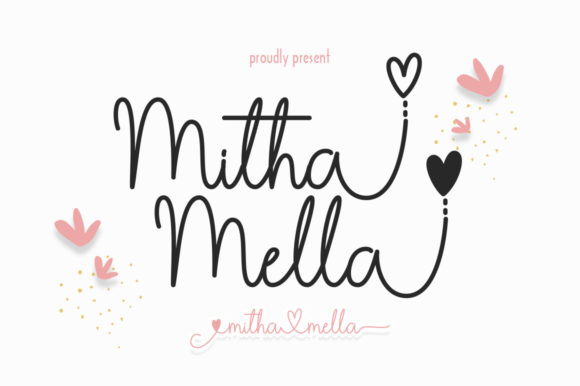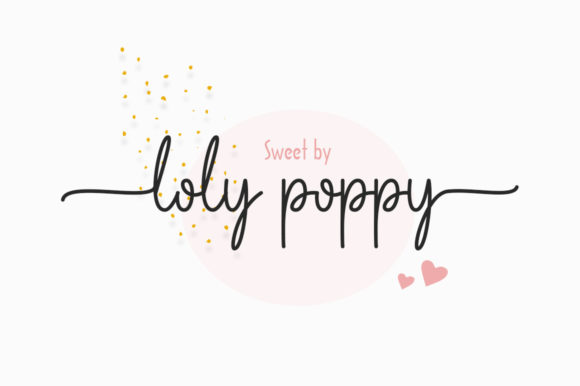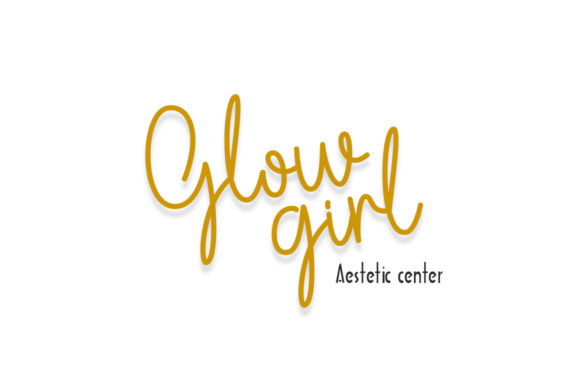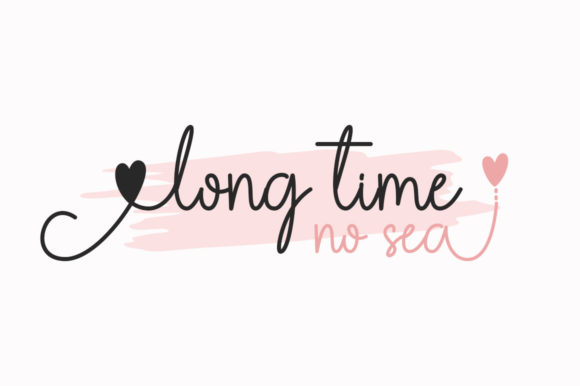
Mitha Mella Font
About Mitha Mella Font
Mitha Mella is a thin-lettered and delicate script font. Add it confidently to your favorite creations, and let yourself be amazed by the outcome generated. This font is PUA encoded, which means you can access all of the amazing glyphs and ligatures with ease!